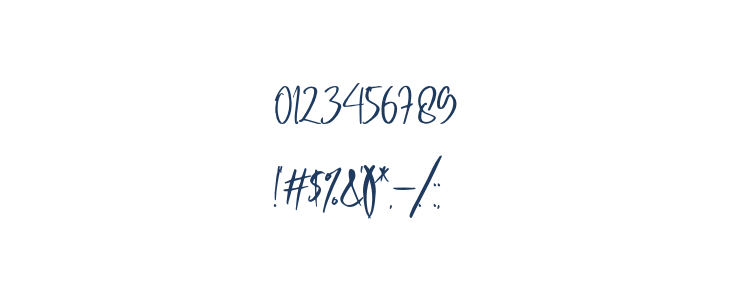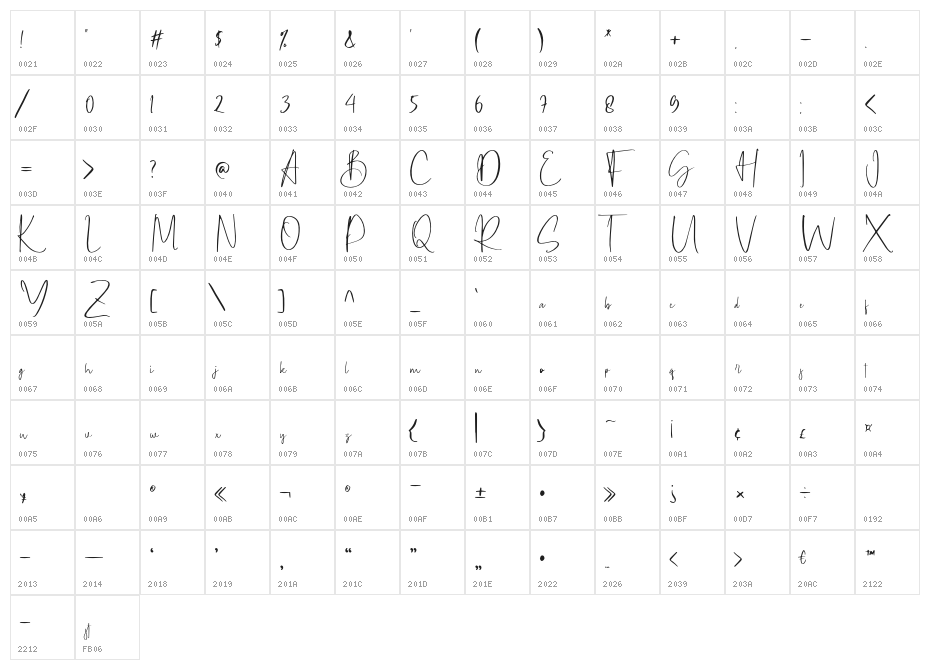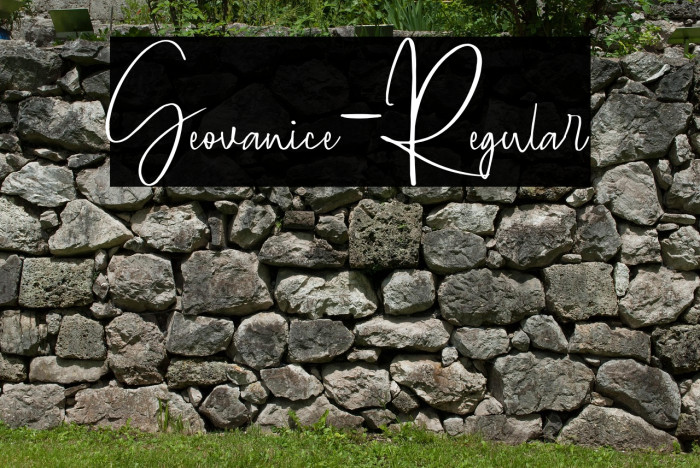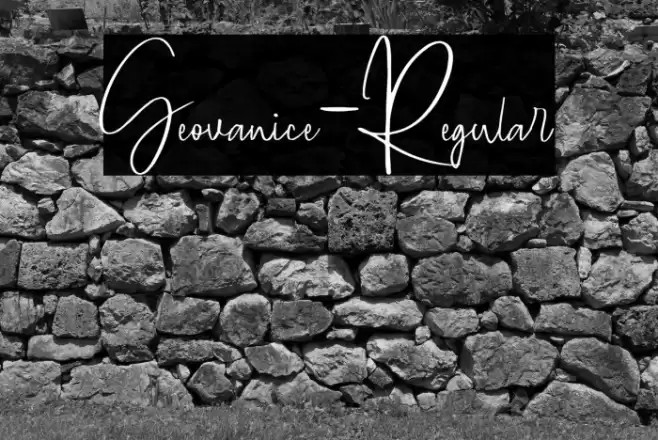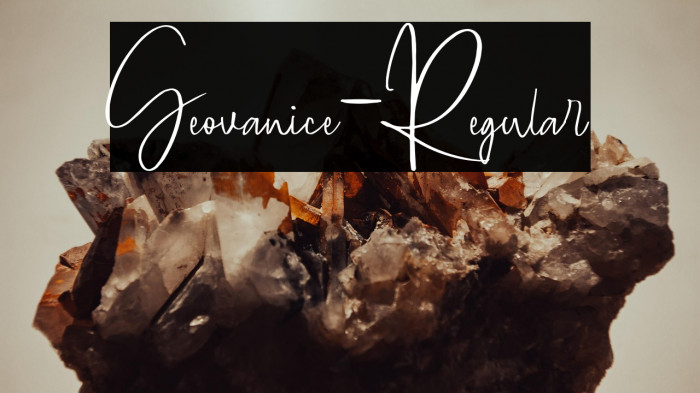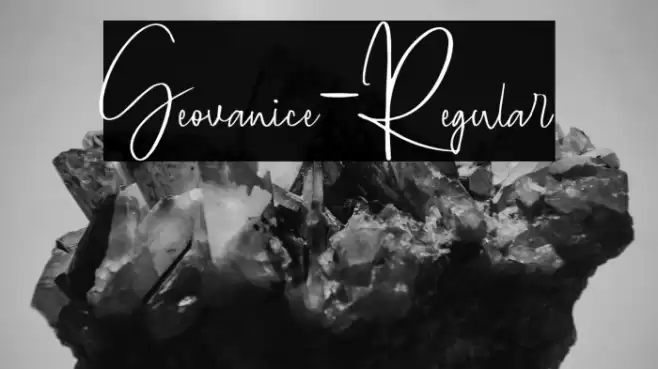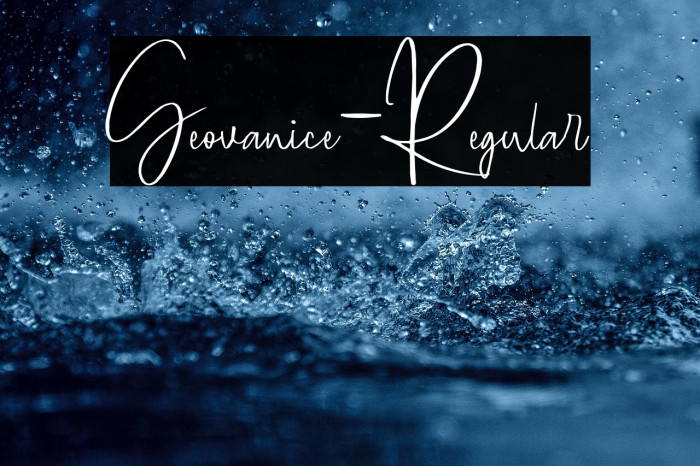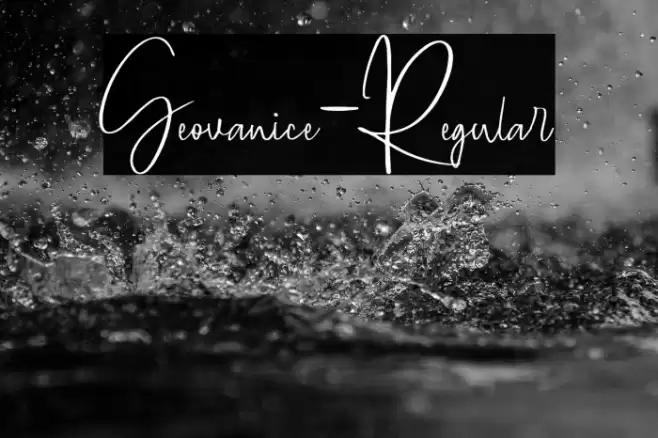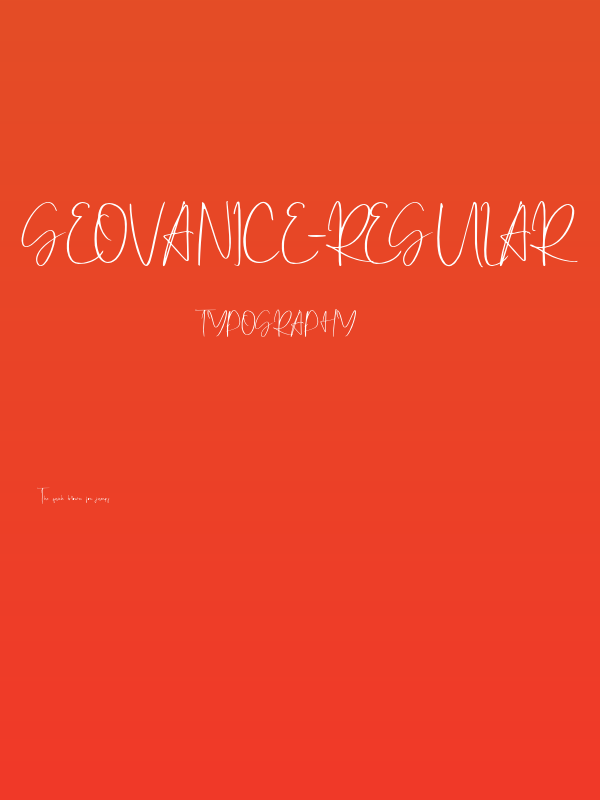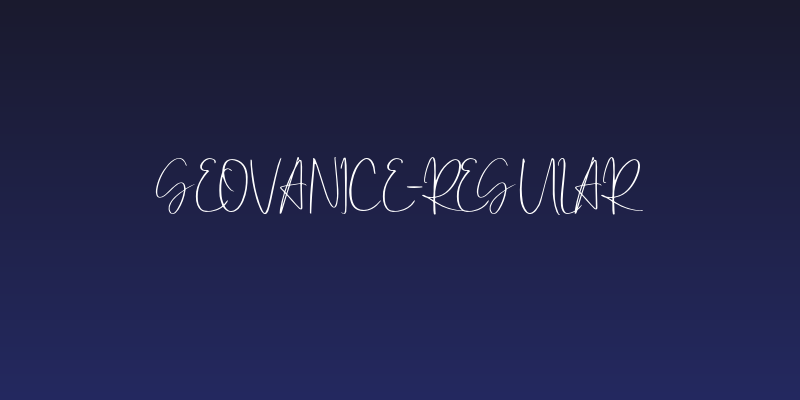
Geovanice-Regular Font
Geovanice-Regular Description
This font features a dynamic and expressive handwritten style, characterized by its flowing and interconnected letterforms. The uppercase letters are bold and slightly irregular, giving a sense of spontaneity and creativity. The lowercase letters maintain a consistent fluidity, enhancing the overall organic feel. Numbers and special characters are crafted with the same artistic flair, ensuring a cohesive look throughout. The font's playful yet elegant design makes it suitable for projects that require a personal touch, such as invitations, greeting cards, and artistic branding.
| Use Case | Logos, Headlines, Artistic projects |
| Proposed Projects | Ideal for invitations, greeting cards, artistic branding, and personal projects. |